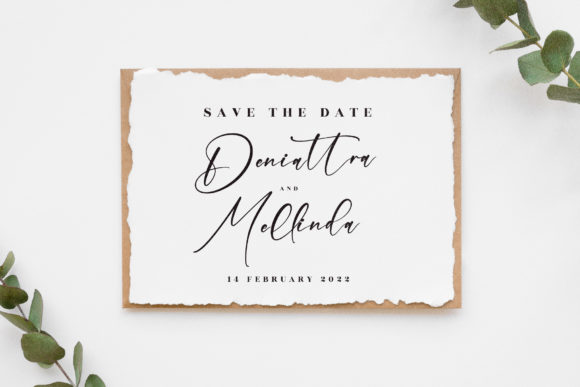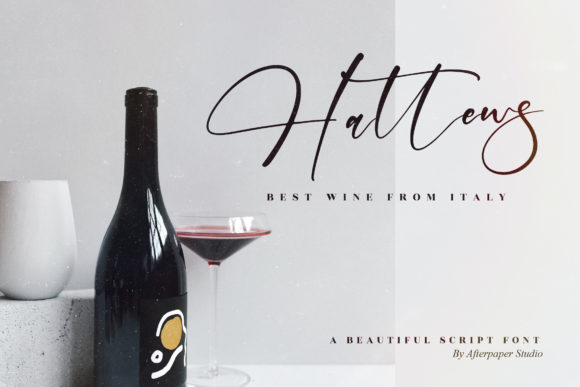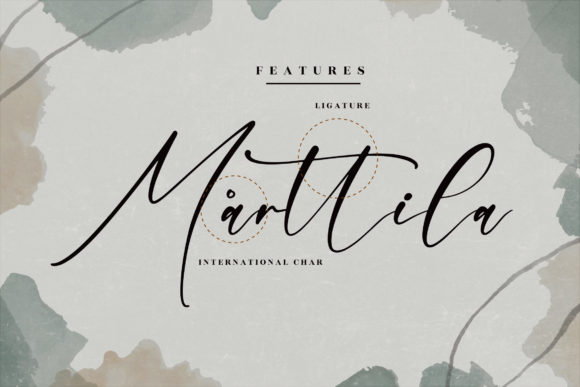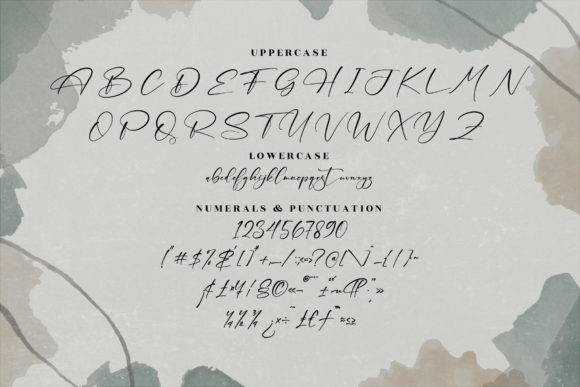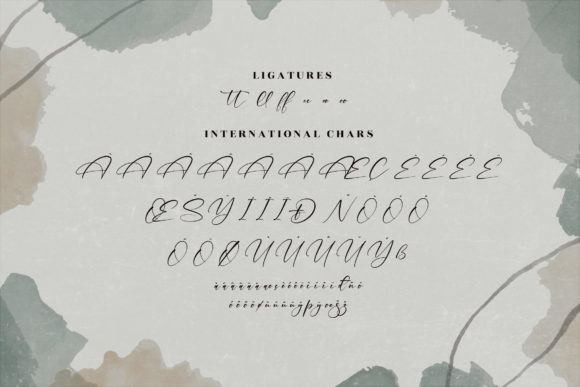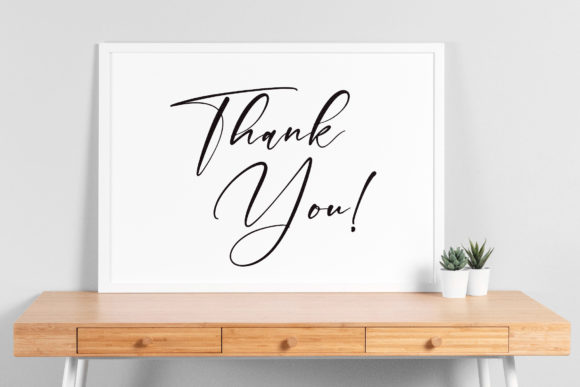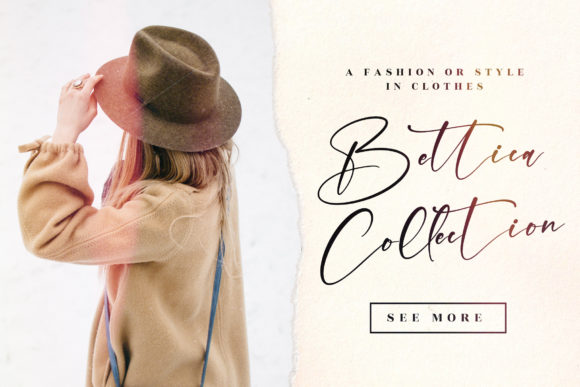
Marttha Unsllah Font
About Marttha Unsllah Font
Marttha Unsllah is a lovely and stylish script font. It is suitable for various projects such as: logos, branding projects, homeware designs, product packaging, mugs, quotes, posters, shopping bags and all your other lovely projects that need a beautiful taste.